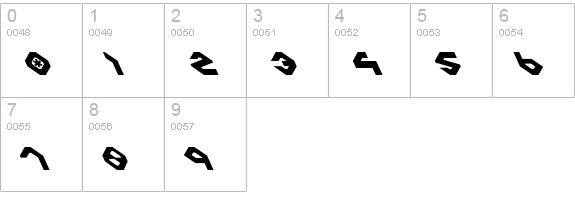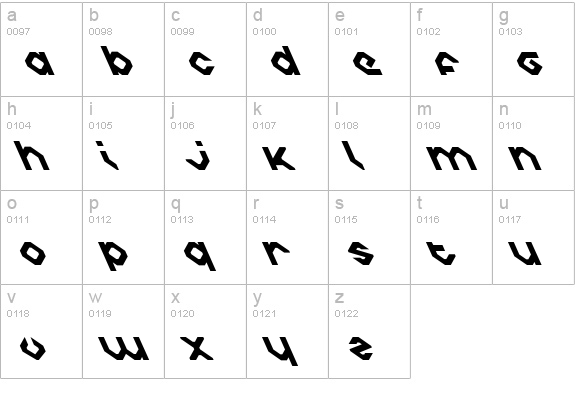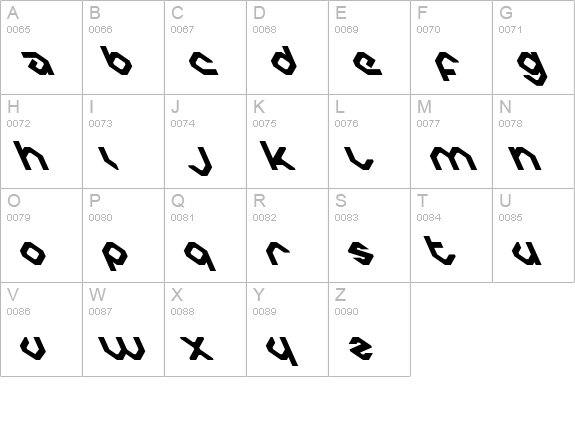
Charlie's Angles Left Font Details
Introducing Charlie's Angles Left font - a dynamic and energetic typeface that exudes a sense of movement and style. With its sharp angles and bold strokes, this font is perfect for adding a modern edge to your designs. The unique slant of the characters adds a touch of flair and creativity, making it stand out from the crowd. What's even better is that Charlie's Angles Left font is available for free download at FontsMarket.com. Whether you're working on a poster, logo, or website design, this font is sure to make a statement and leave a lasting impression. Don't miss out on the opportunity to add this versatile font to your collection today!